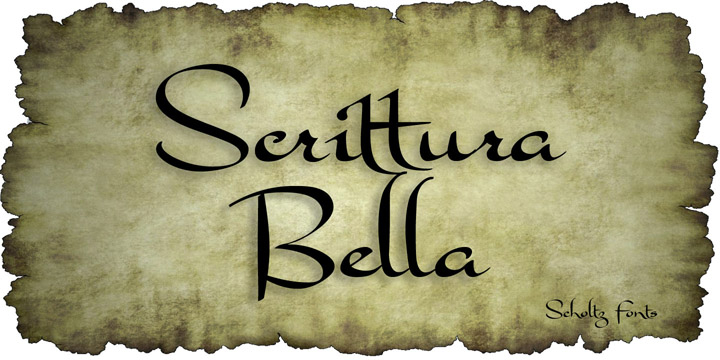
Scrittura is a grunge and script font family. This typeface has three styles and was published by Scholtz Fonts.
Scrittura was inspired by Anton Scholtz’s font, Honeybird, and developed into a contemporary variation with three styles.
Scrittura Moderna: sleek and calligraphic. A dramatic, vigorous yet elegant font, whose upright letter shapes flow into each other like molten gold. Use Moderna for marketing cosmetics and clothing, for book covers, greeting cards, wedding stationery.
Scrittura Antiqua: weathered, almost grungy. A new font with an “antique” look , reminiscent of ancient parchment manuscripts. Use Antiqua for certificates, medieval banquet or wedding stationery, theatre posters and programs, and book covers.
Scrittura Fantasia: magical and ghostly. A slightly distorted, evoking Halloween, the Day of the Dead, and your favorite horror movie. Use Fantasia for horror comic covers & posters, horror movie posters, CD covers, Halloween material.
The font contains over 272 characters - (upper and lower case characters, punctuation, numerals, symbols and accented characters are present). It also includes “open-type"characters to enhance the flow of the text. It has all the accented characters used in the major European languages.